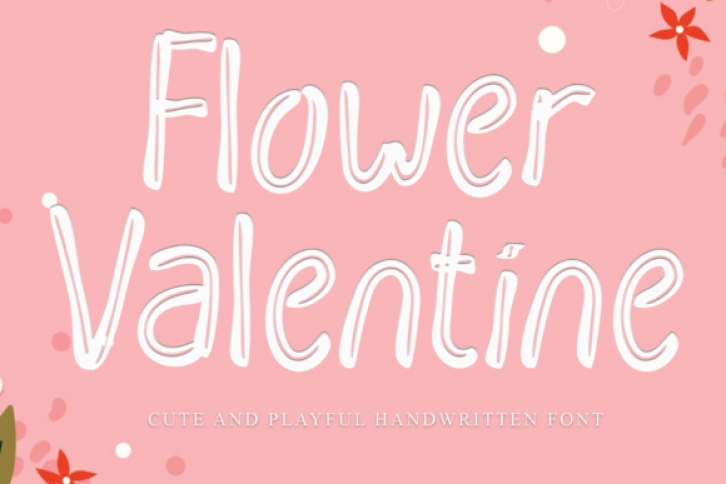
Flower Valentine is a creative and trendy display font. Expertly designed, this font has the potential to take your creative ideas to the highest levels!